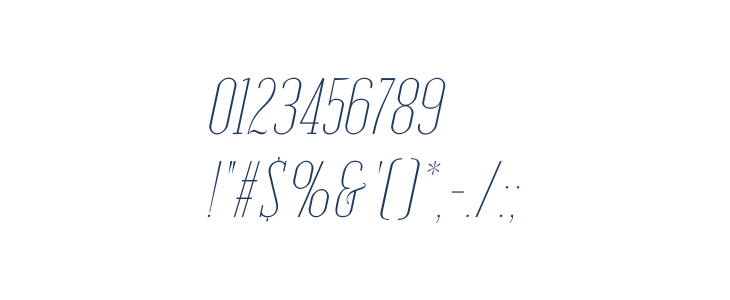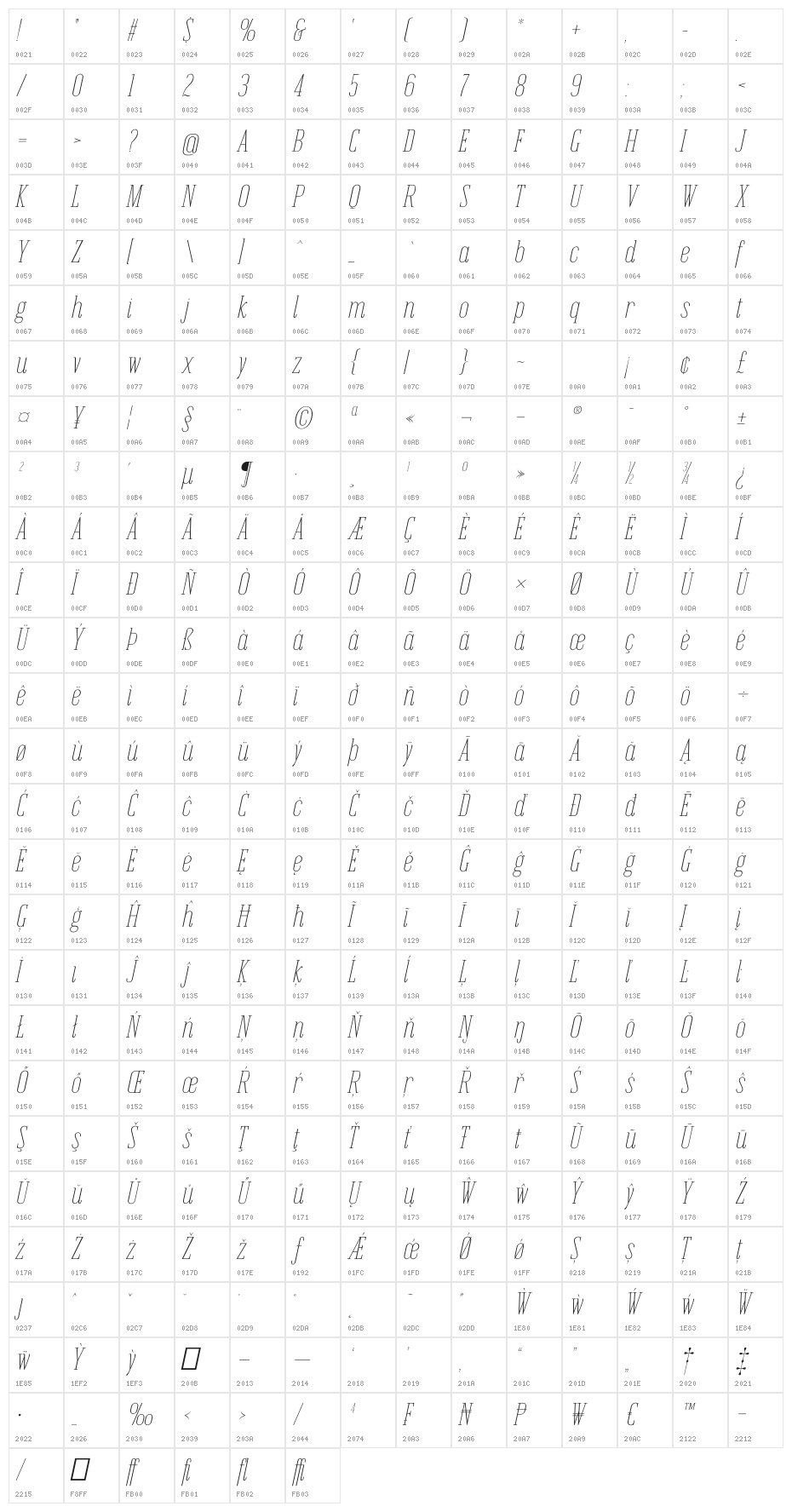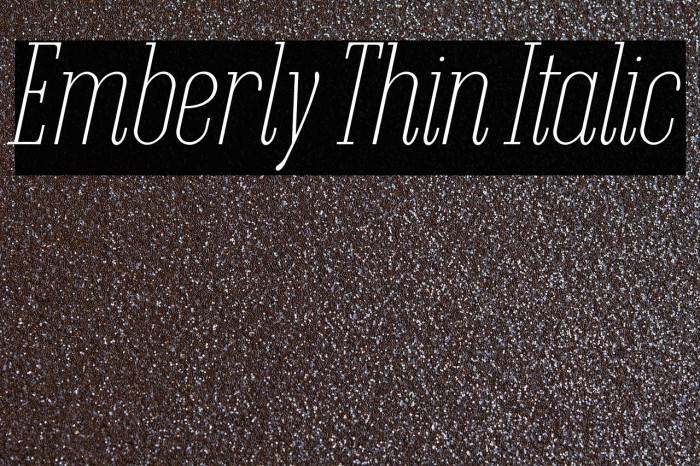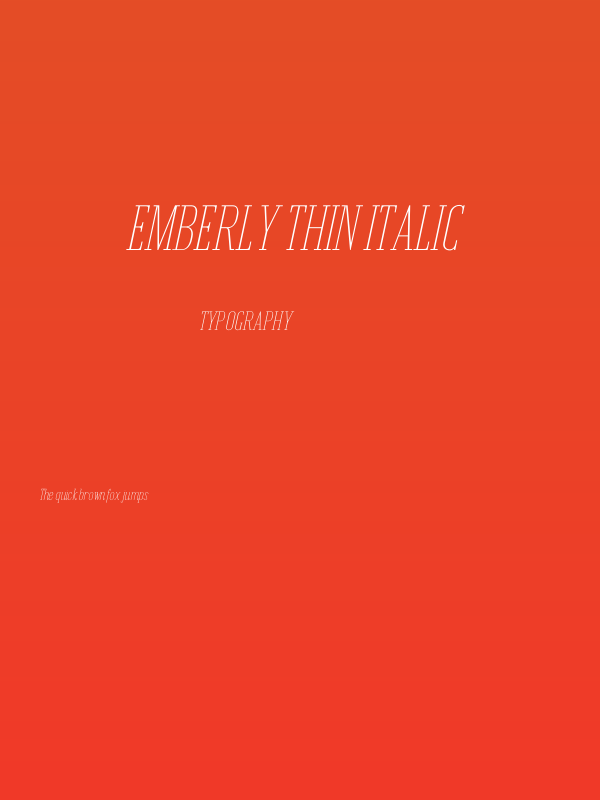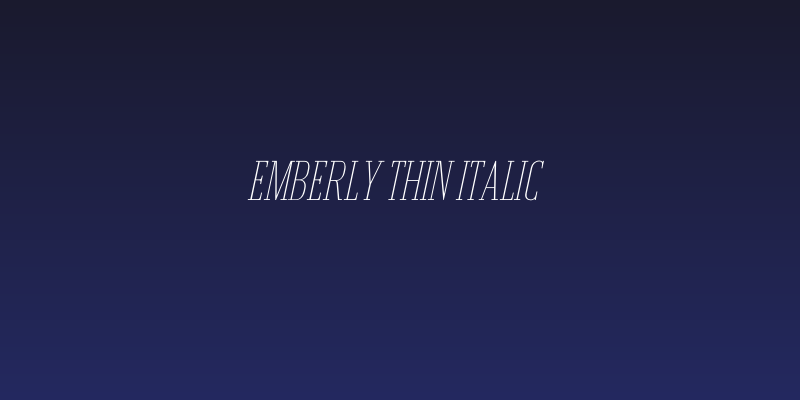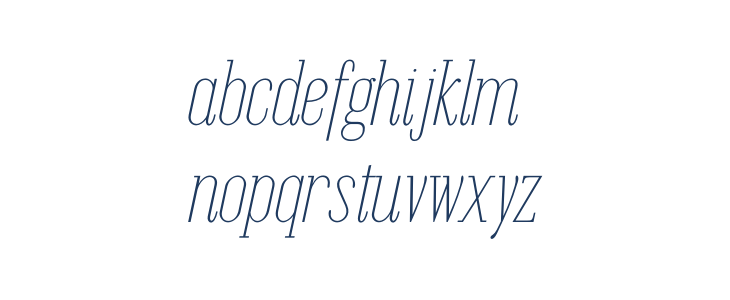
Emberly Thin Italic Font
Emberly Thin Italic Description
This font features a sleek and elegant design with thin, elongated letterforms that convey a sense of sophistication and modernity. The italic style adds a dynamic and fluid motion to the text, enhancing its visual appeal. Each character is meticulously crafted with a high level of detail, ensuring clarity and readability despite the thin strokes. The font maintains a consistent slant across all characters, providing a cohesive and harmonious look. Its delicate structure is balanced by a moderate contrast between thick and thin strokes, adding depth and interest to the overall appearance. The spacing between characters is tight, which contributes to a compact and efficient use of space, making it ideal for stylish and contemporary design projects.
| Proposed Projects | Ideal for fashion magazines, luxury branding, elegant invitations, and modern editorial layouts. |